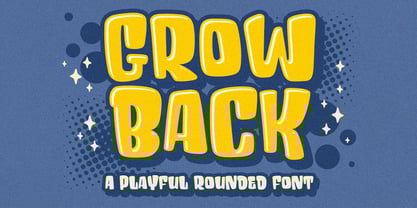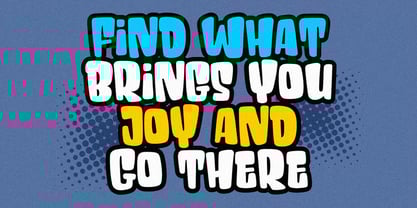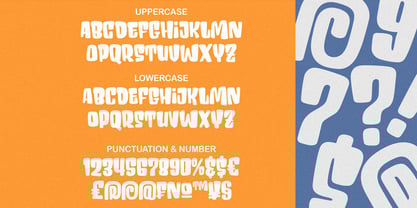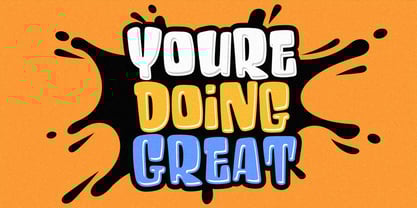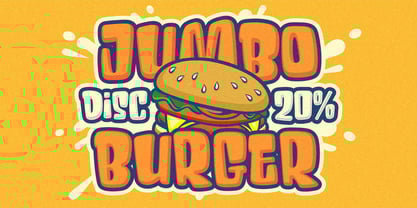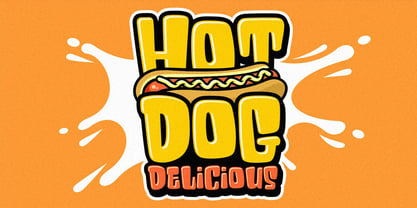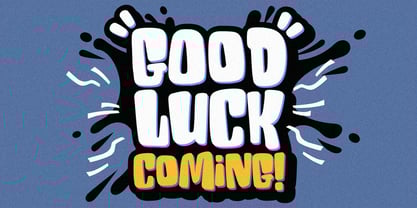
Grow Back
by Hanzel Space
The Grow Back Font Family was designed by Hanief Farandi and published by Hanzel Space. Grow Back contains 1 styles. More about this family
Hello, let me introduce you to the new font I created, "Grow Back" which is made with unique and interesting characters, has a random anatomy of small and thick lines so that this font looks fun, not to forget its smooth, firm and slightly rounded shape.
"Grow Back" font is ideal for branding projects or packaging that need a quirky and playful feel. Perfect for a wide range of applications, from crafting eye-catching headings and dynamic logotypes to bringing energy to quotes, apparel, invitations, flyers, posters, greeting cards, product packaging, book covers, and printed quotes.
Features:
• Uppercase & Lowercase
• Numerals & Punctuation
• Ligatures
• Multilanguage Supports
Designers: Hanief Farandi
Foundry: Hanzel Space